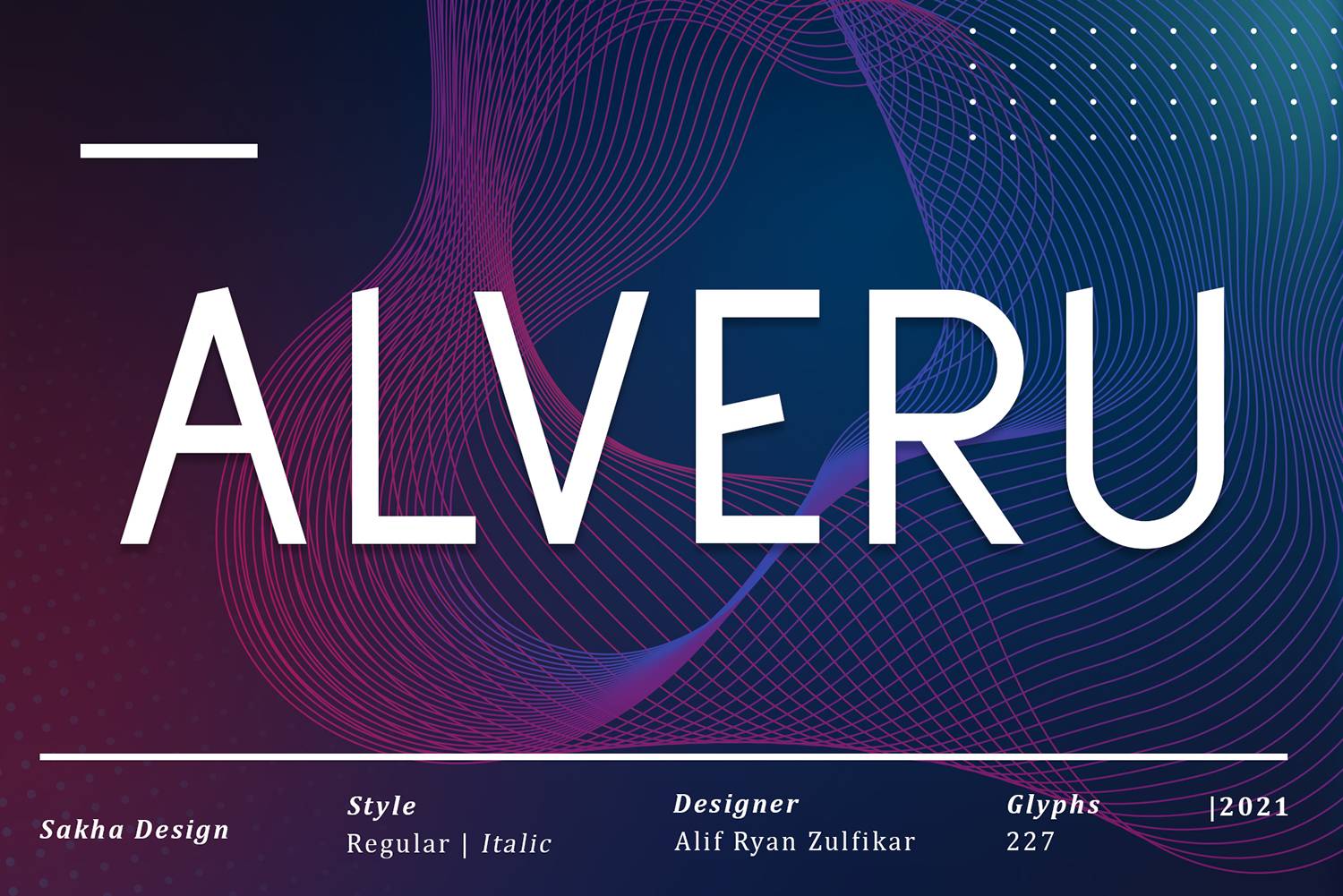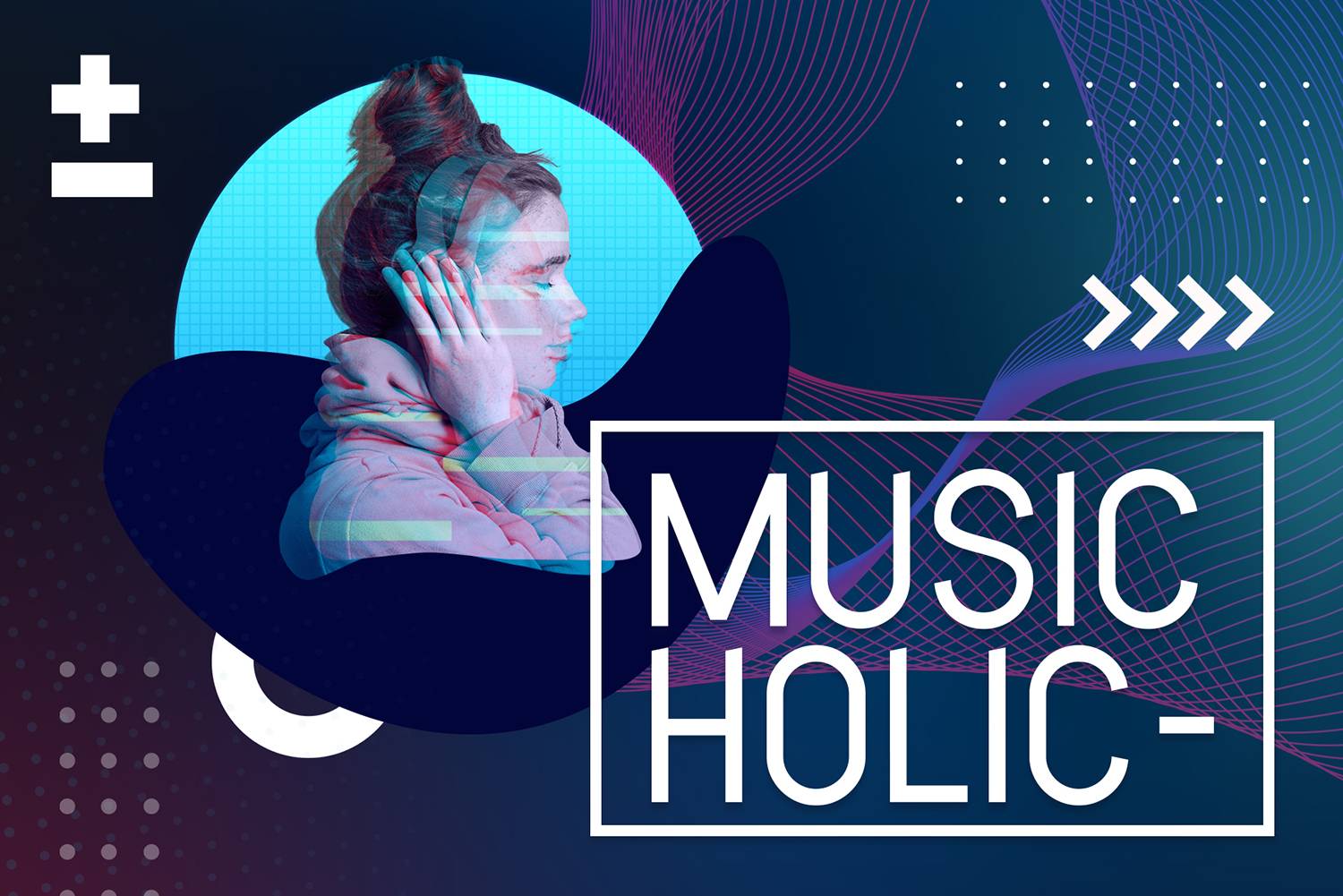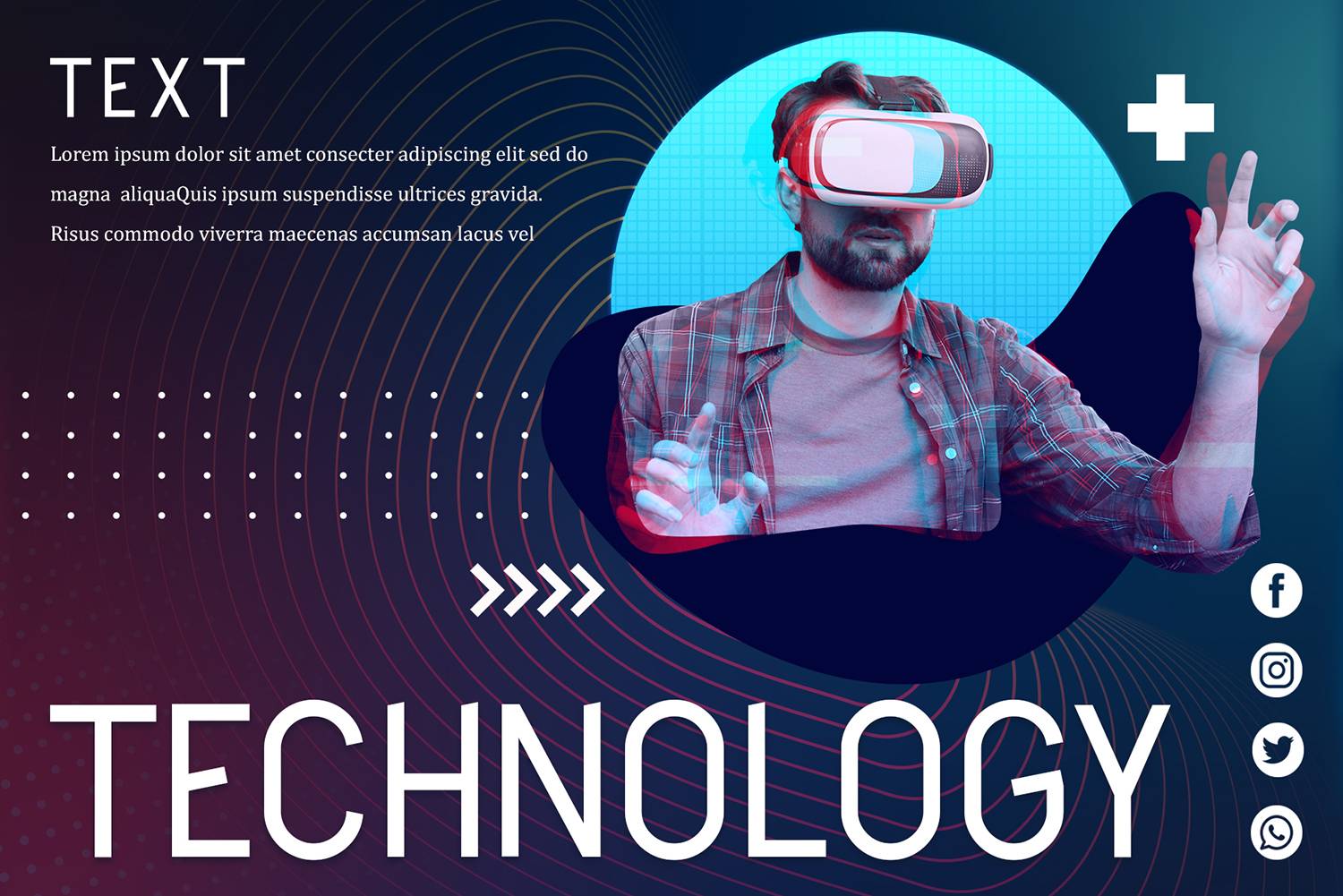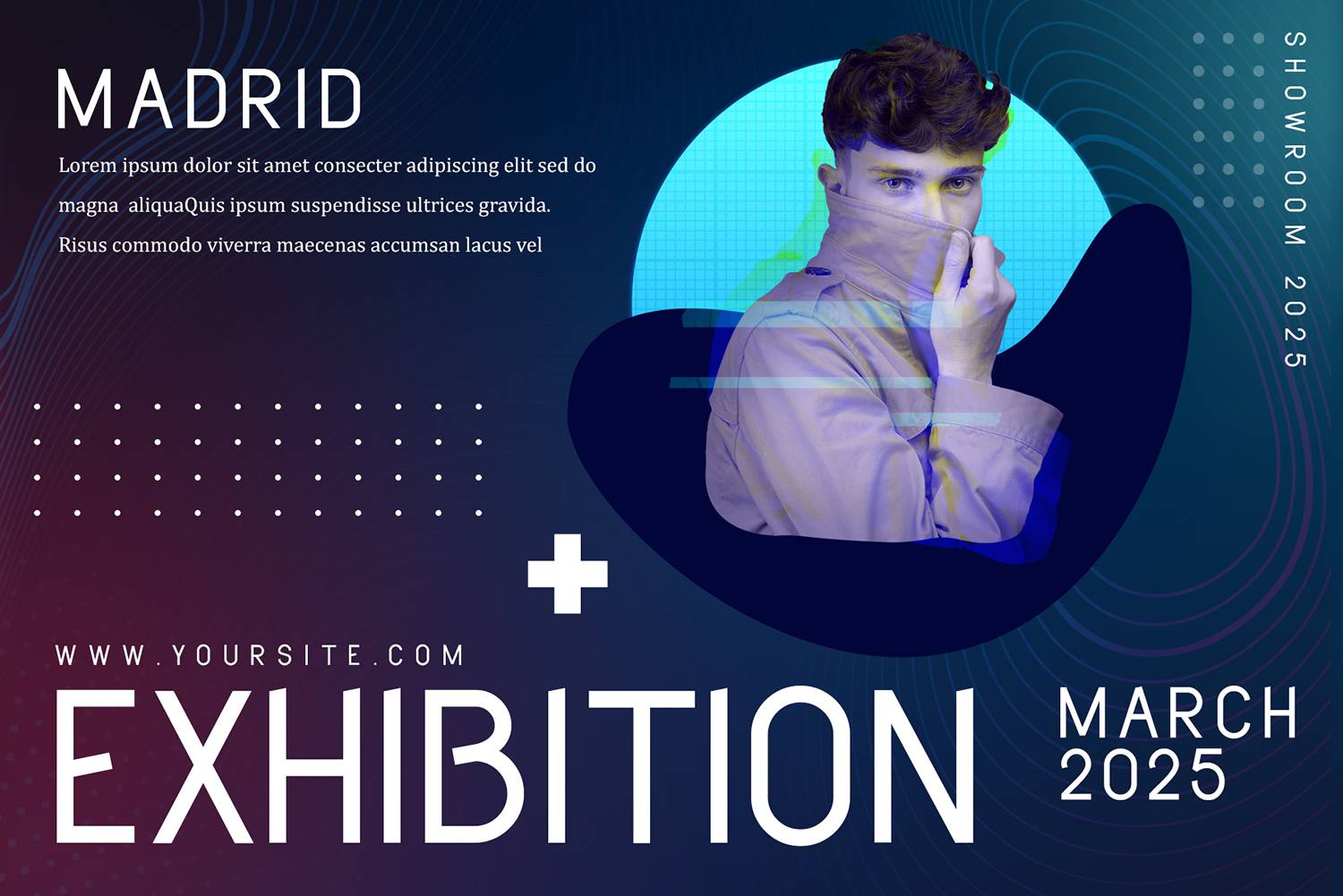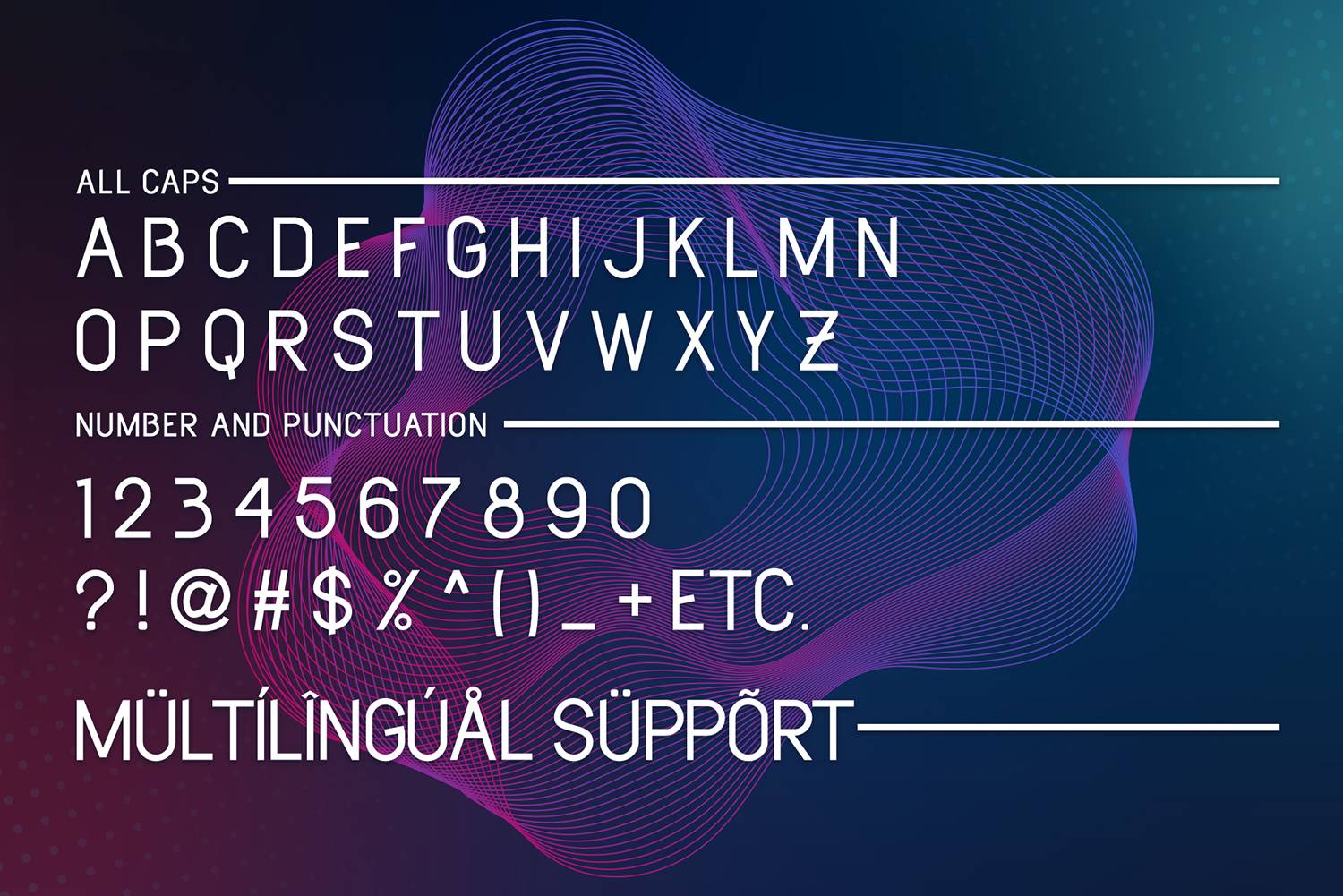
Alveru is a condensed sans serif font characterized by its tall, narrow letterforms and clean, slightly geometric strokes. It has a modern and minimalist feel with uniform stroke weight and a unique, playful touch seen in subtle quirks like the distinct tails on letters such as Q and R. This font works well for contemporary branding, headlines, and editorial design where space is limited but clarity and style are essential.
Alveru Font
About Alveru Font
| Font family | Alveru Font |